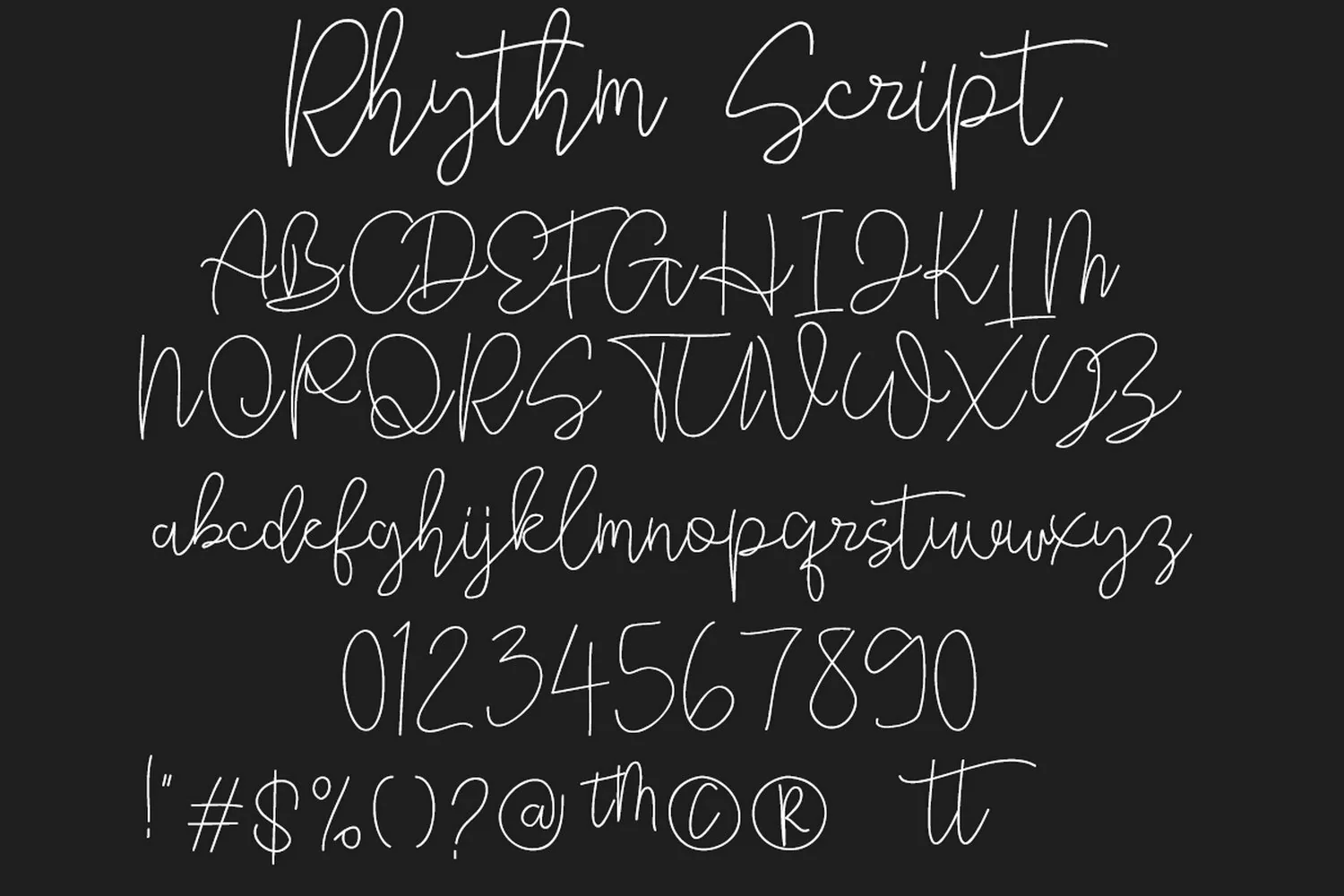
Rhythm Script Font
Rhythm Script Font is a signature script font, this font looks classy, luxury, elegant, romantic, and awesome. Rhythm Script Font is the best choice for your professional design projects, including : logo, poster design, t-shirt, headline, flyer, cd cover album, quotes, business card, branding, magazines, social media, advertisements, product designs, or something that need signature or beauty looks.
Rhythm Font Features :
• Upper + Lowercase Letters
• Numbers + Punctuation
• Ligature Feature
• OpenType features